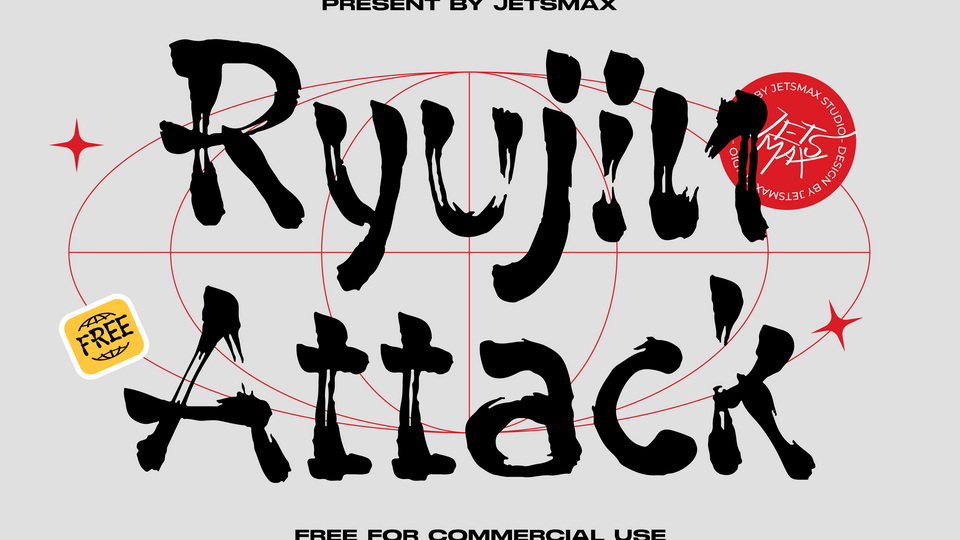
Download Ryujin Attack font, a trendy brush typeface with a natural handwriting style. You can use Ryujin Attack to elevate any of your design projects.
Designer: Jetsmax Studio